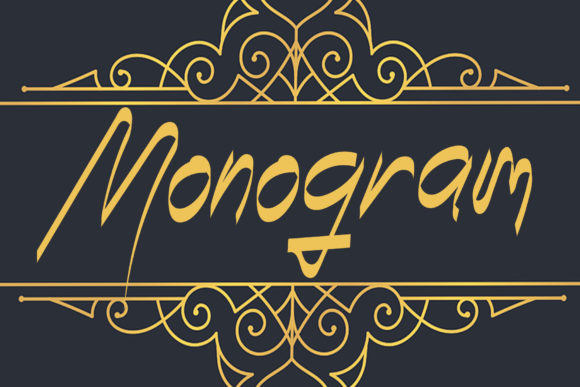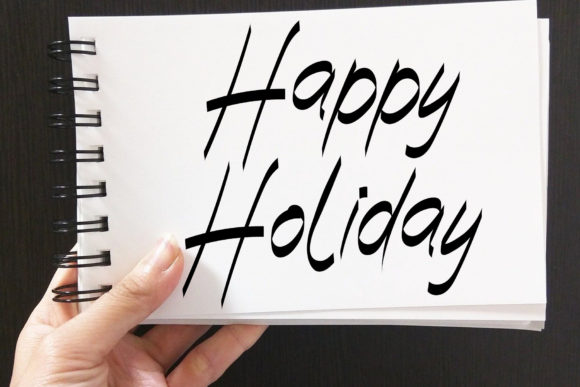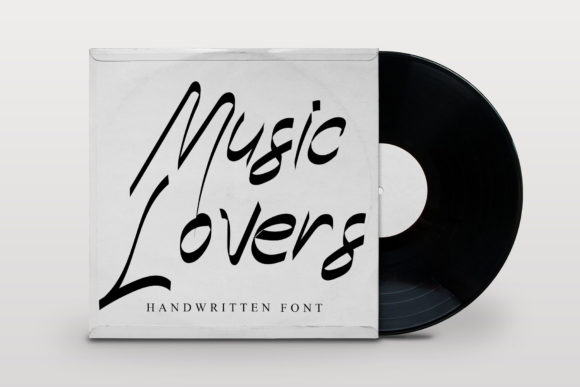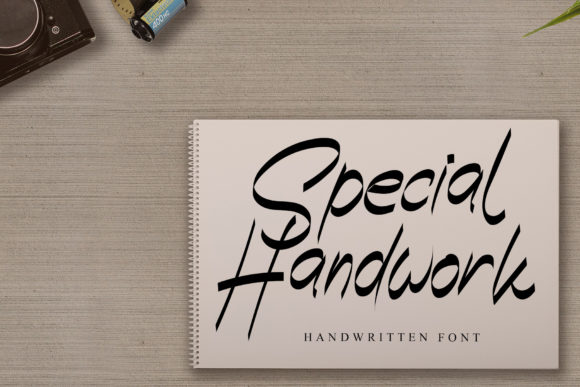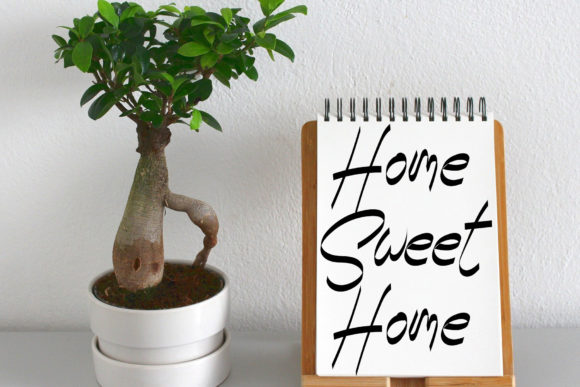
Monogram Font
About Monogram Font
Monogram is a unique and elegant handwritten font. Looks great on wedding invitations, greeting cards, billboards, logos, business cards, and any other design that requires a handwritten touch.